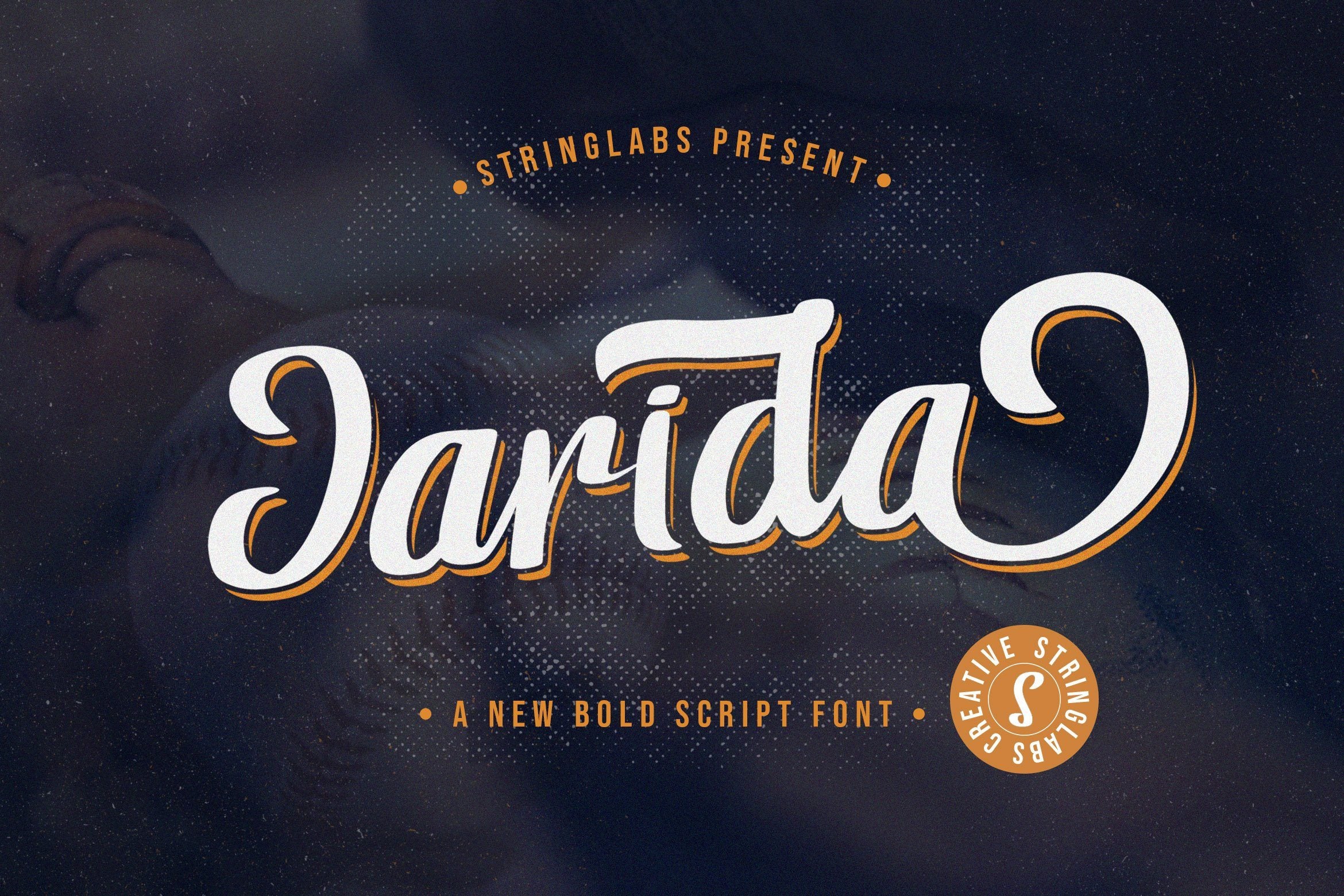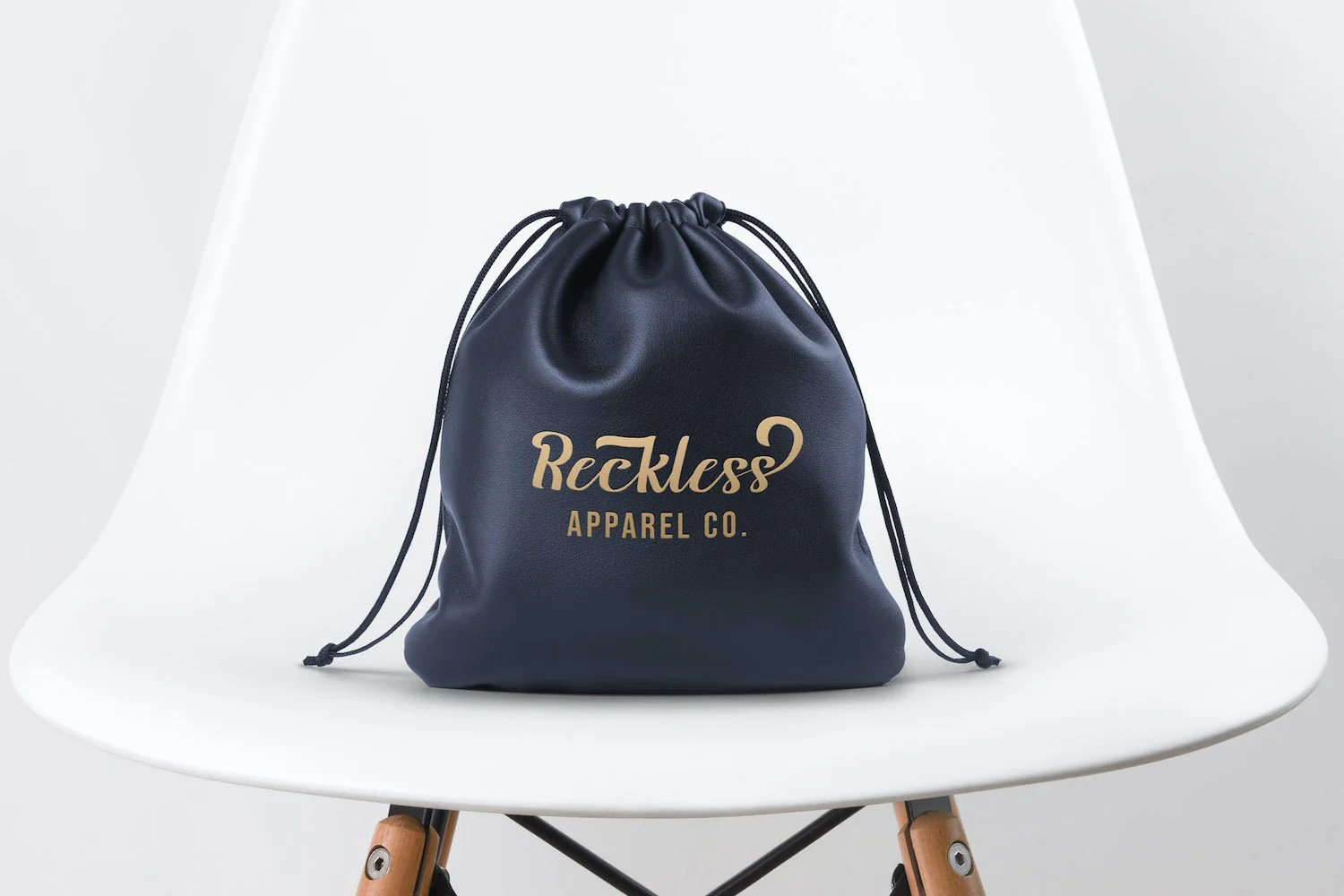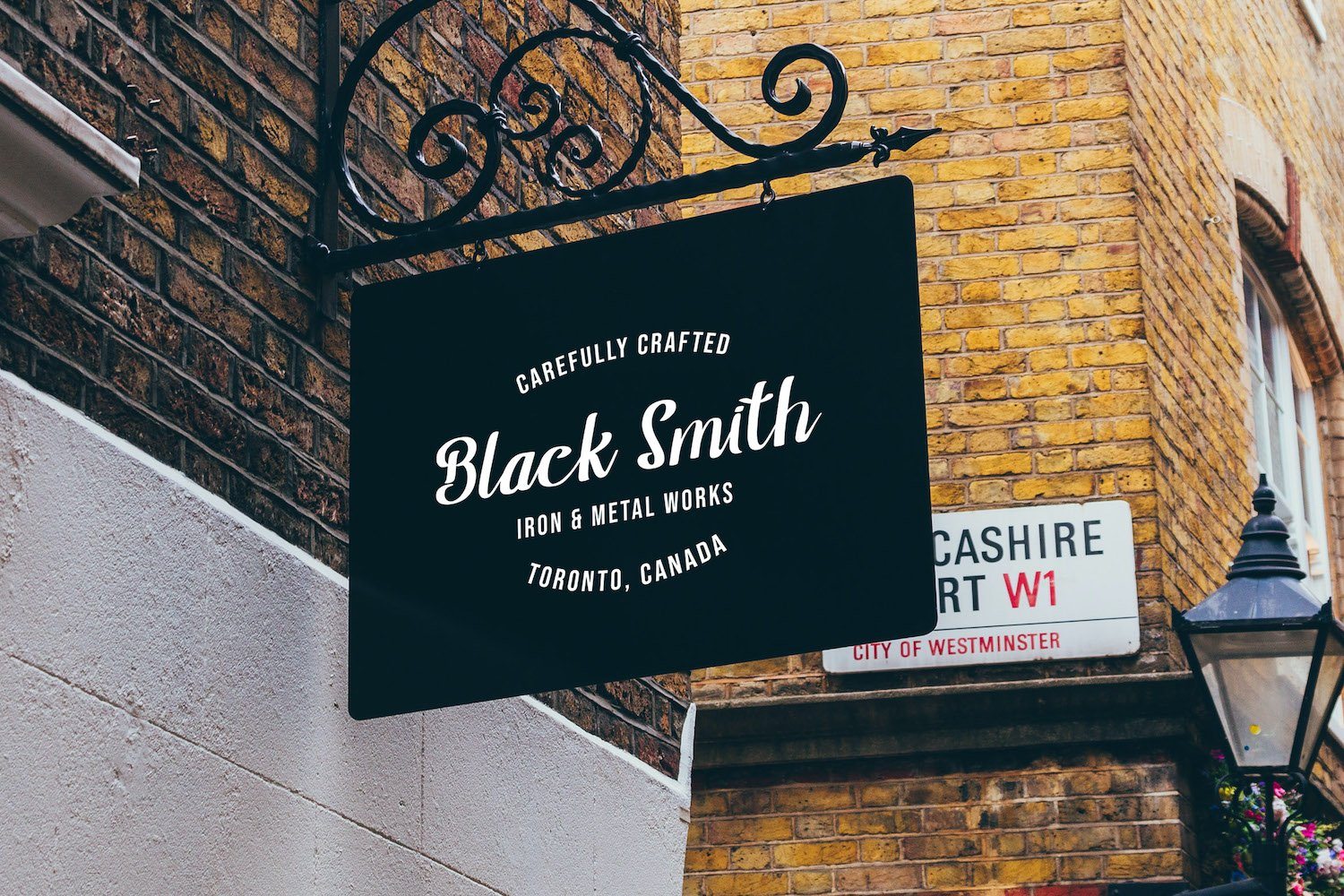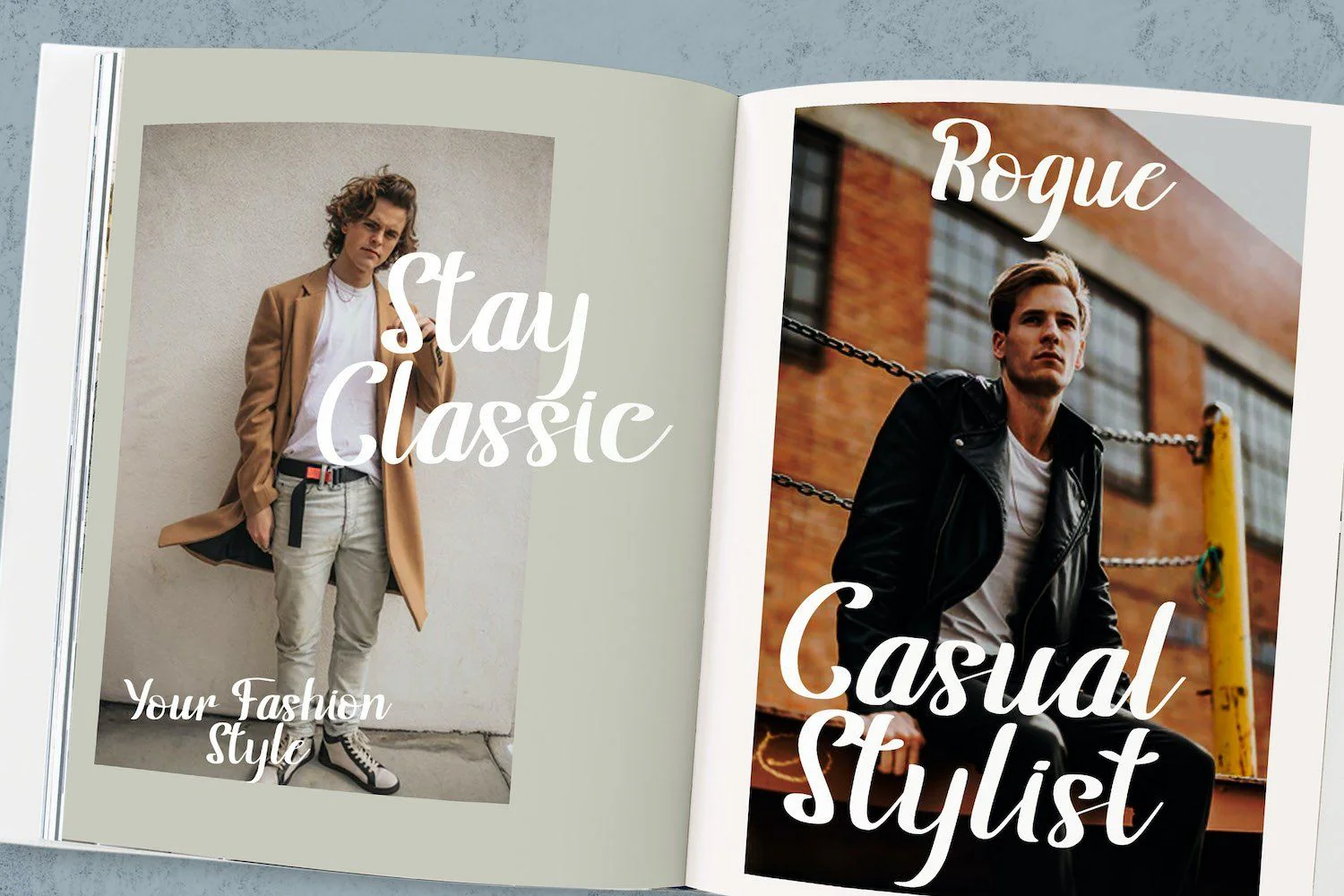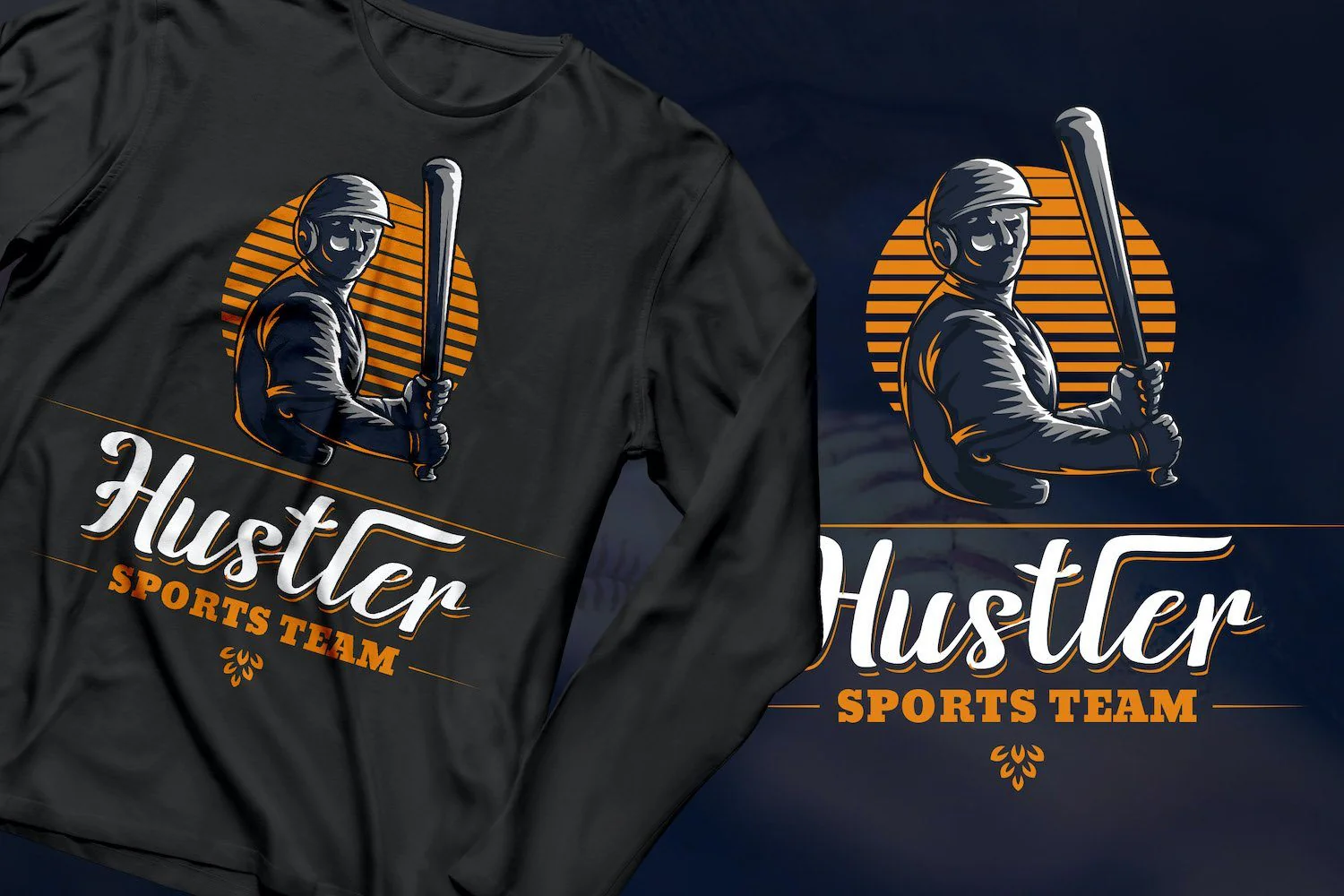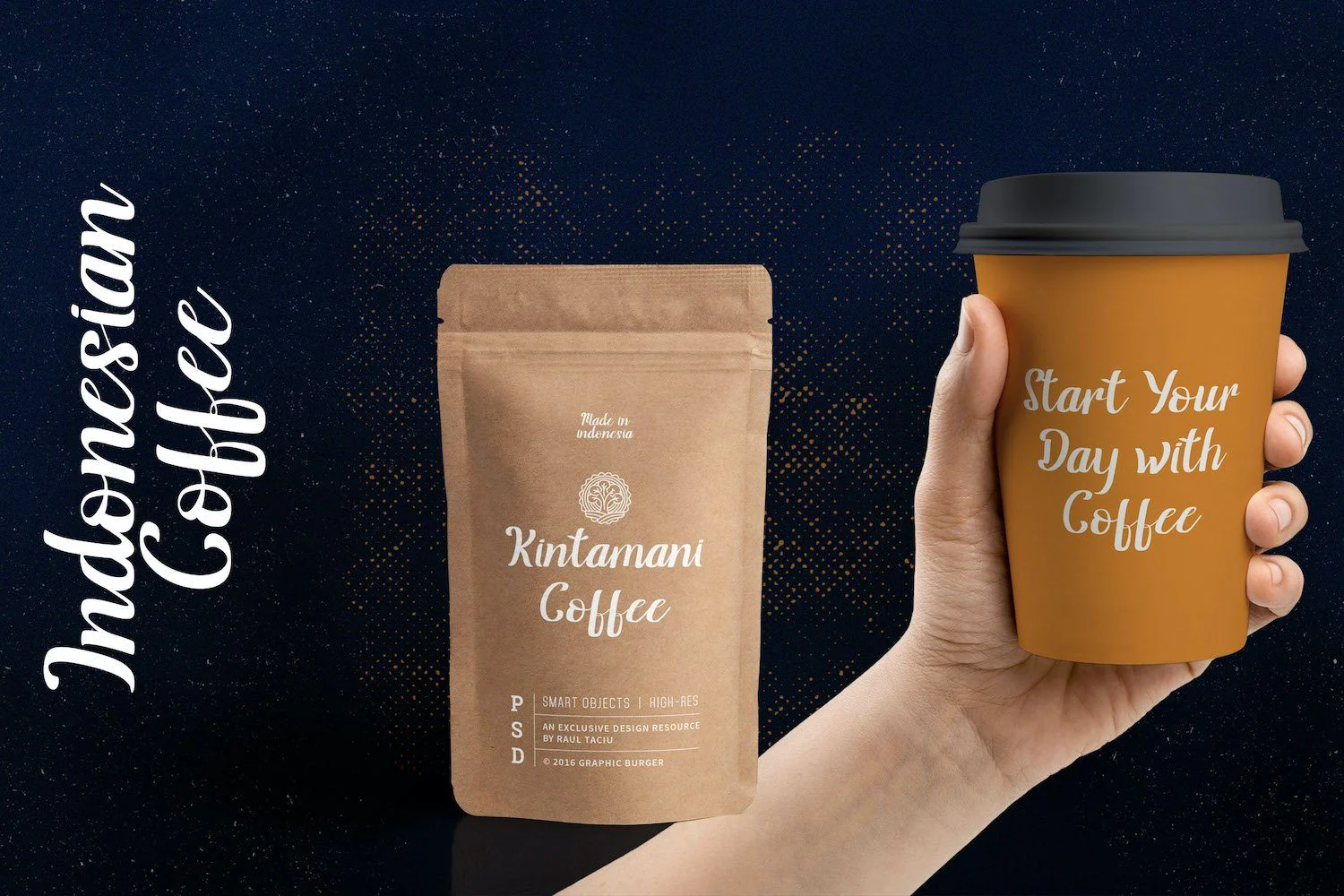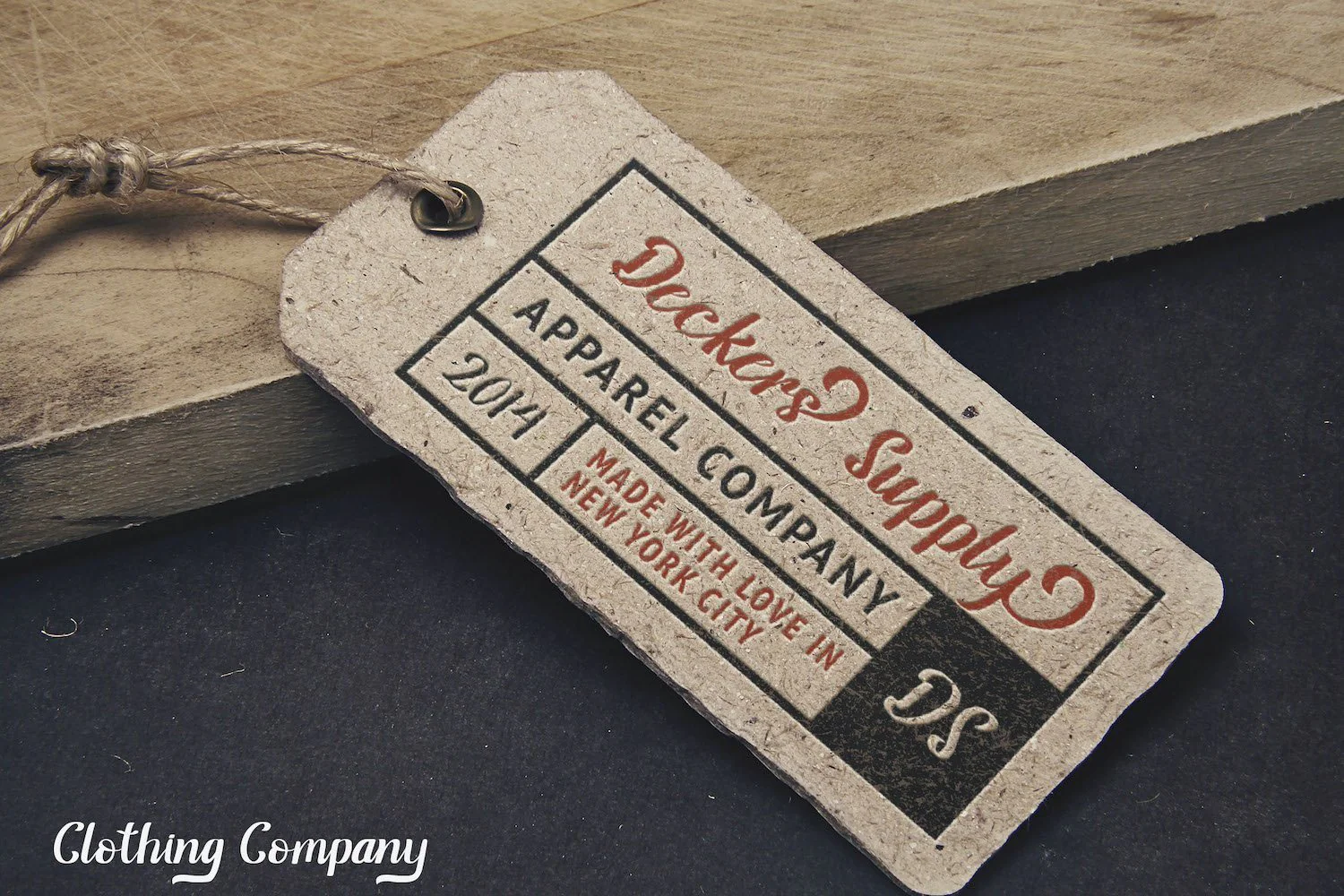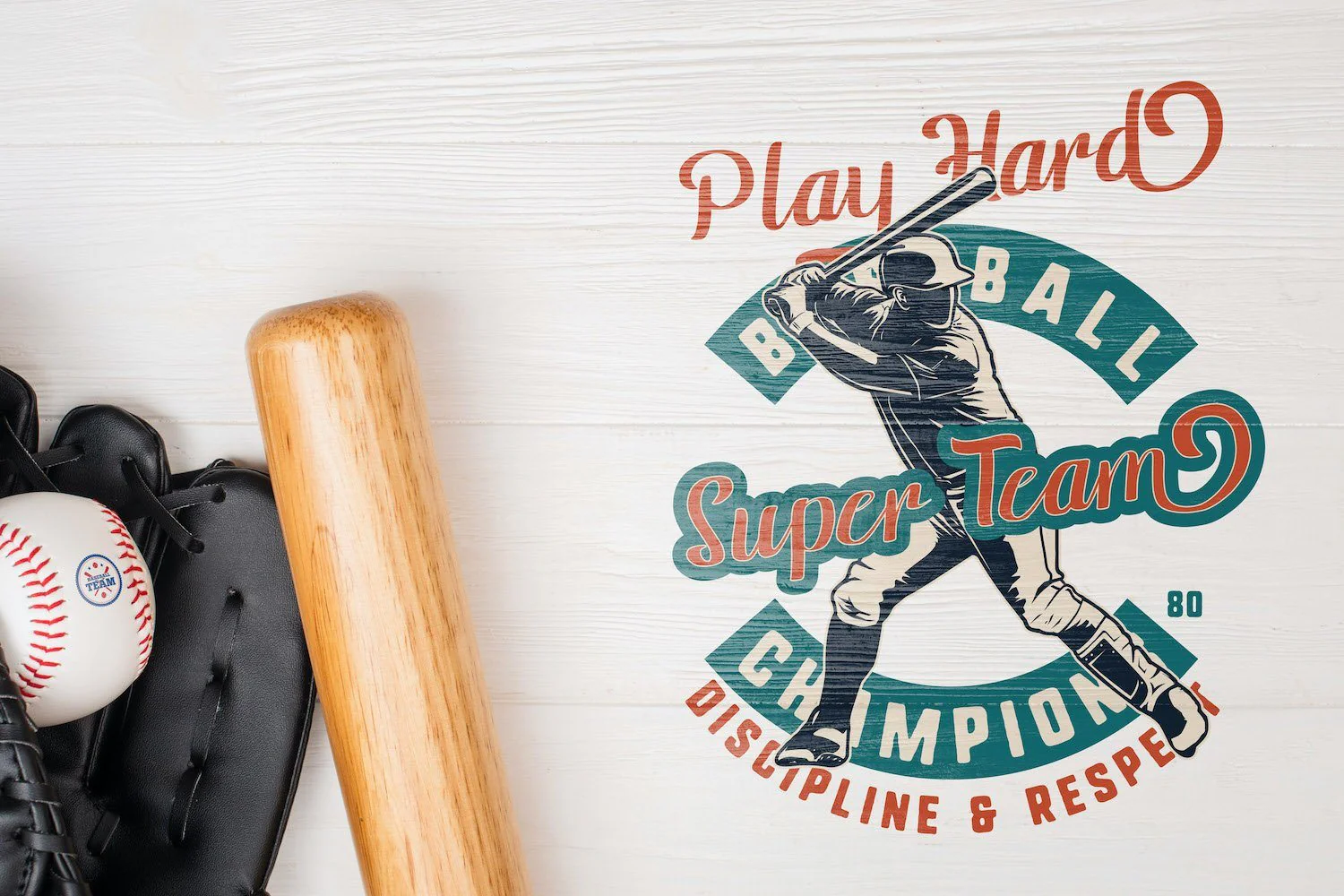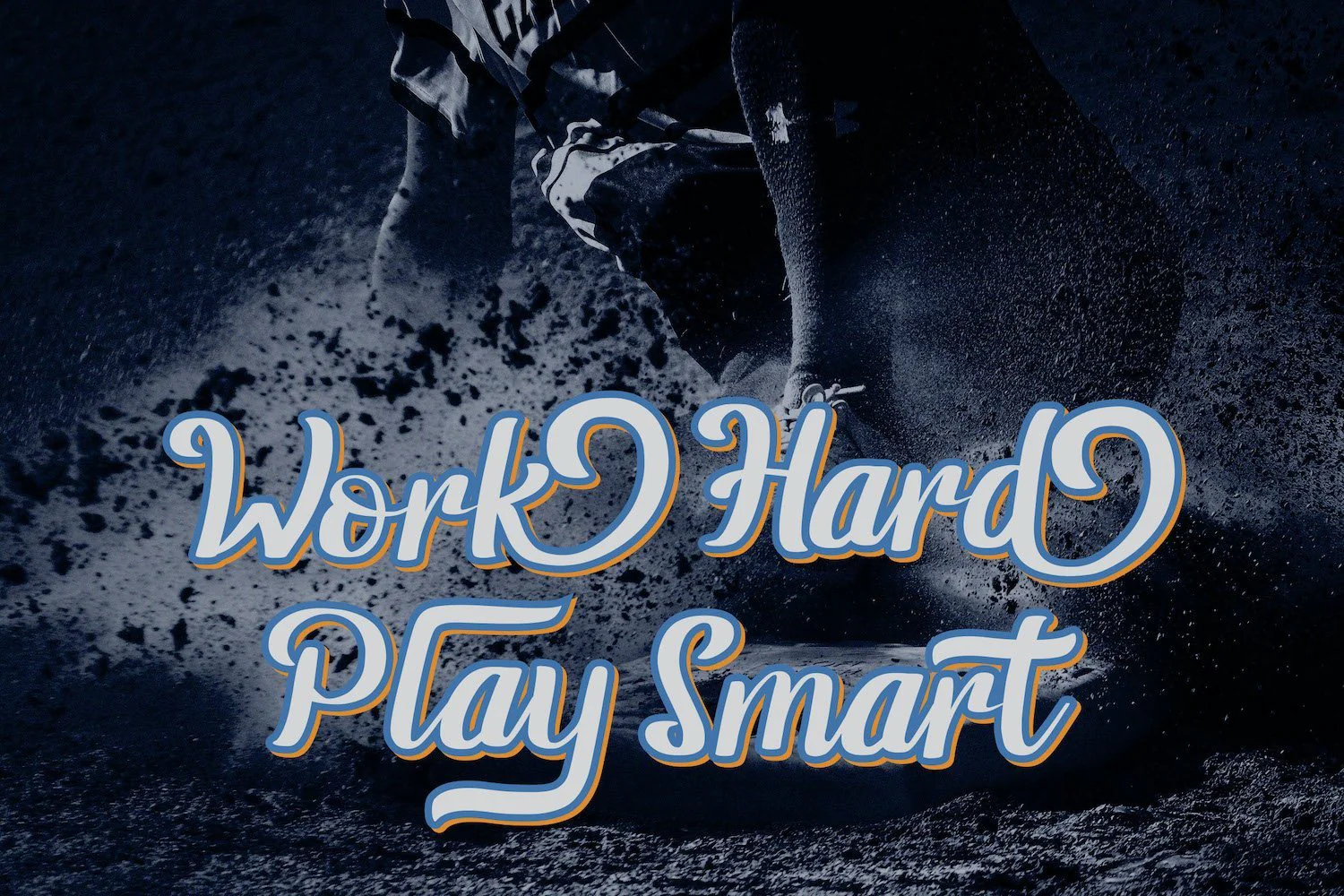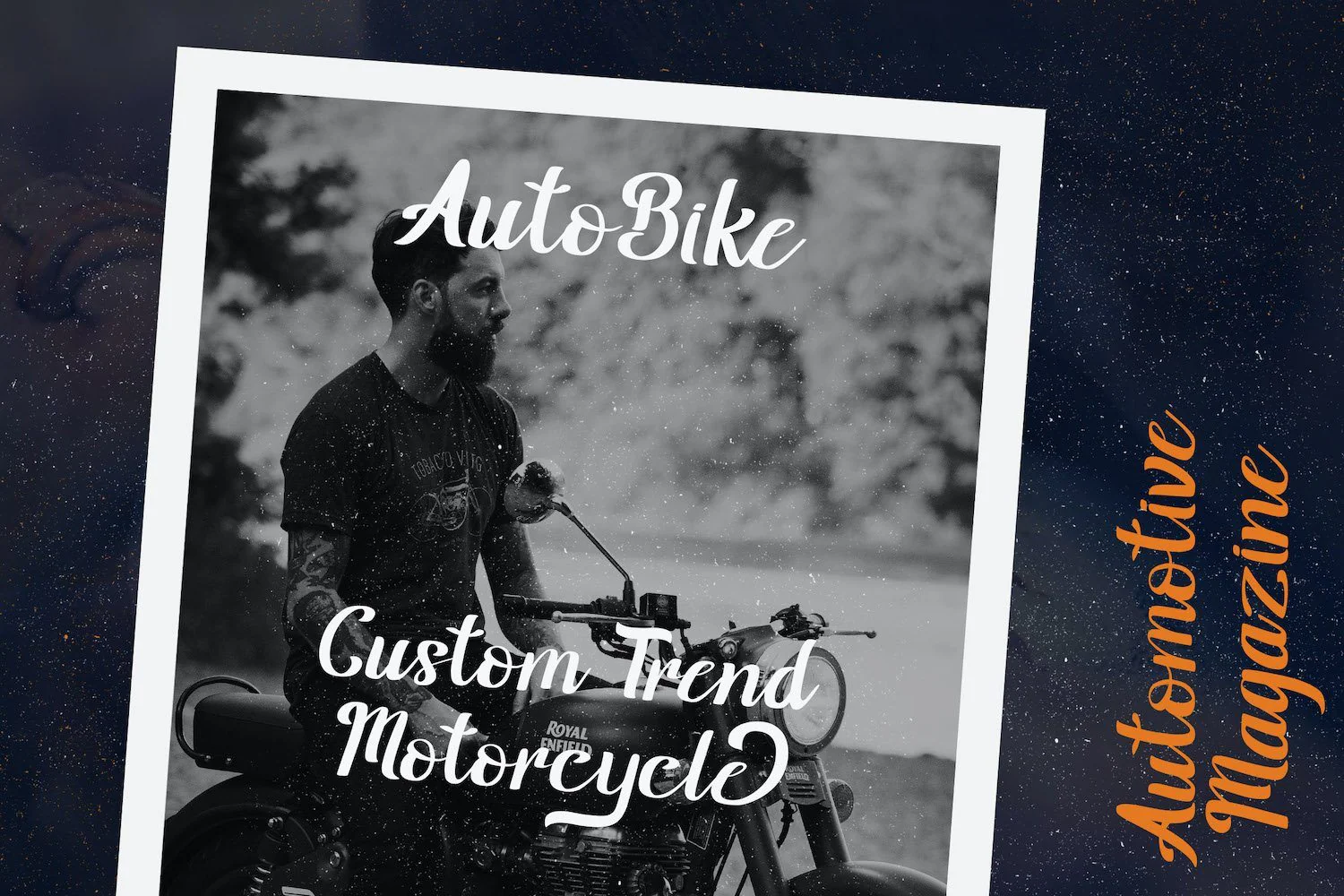
Jarida - Bold Script Font
Introducing Jarida - Bold Script Font
Jarida is an exquisite handwritten font, masterfully designed to become a true favorite. It maintains its classy calligraphic influences while feeling contemporary and fresh. Fall in love with it and bring your projects to the highest levels!
Introducing Jarida - Bold Script Font
Jarida is an exquisite handwritten font, masterfully designed to become a true favorite. It maintains its classy calligraphic influences while feeling contemporary and fresh. Fall in love with it and bring your projects to the highest levels!